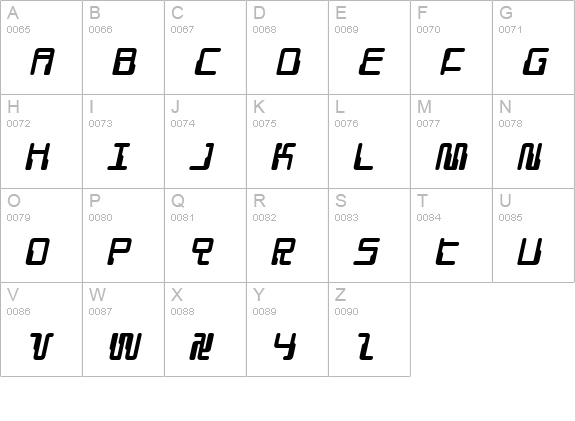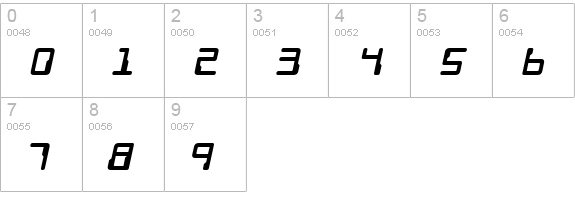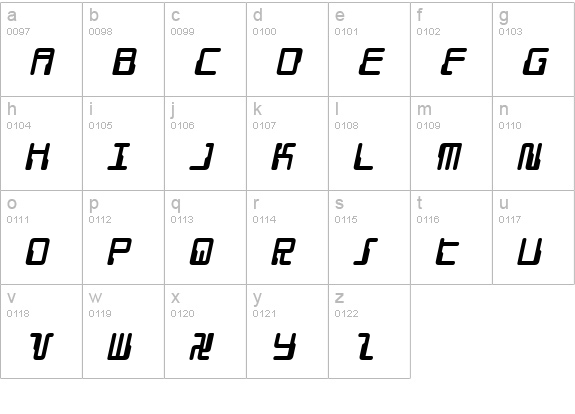
Droid Lover Italic is a distinctive, italic variant in the Droid typeface family \xE2\x80\x94 well suited to design and typography projects.
Droid Lover Italic font is a sleek and modern typeface designed for those who have a passion for all things futuristic and tech-savvy. Its italicized style gives a dynamic and energetic vibe to any text or design, making it perfect for projects that require a touch of sophistication. Best of all, Droid Lover Italic font is completely free to download at FontsMarket.com. This means you can enhance your creations with this stylish font without having to worry about any costs. So why not give your designs a futuristic edge with Droid Lover Italic font today? Download it now and let your creativity soar!